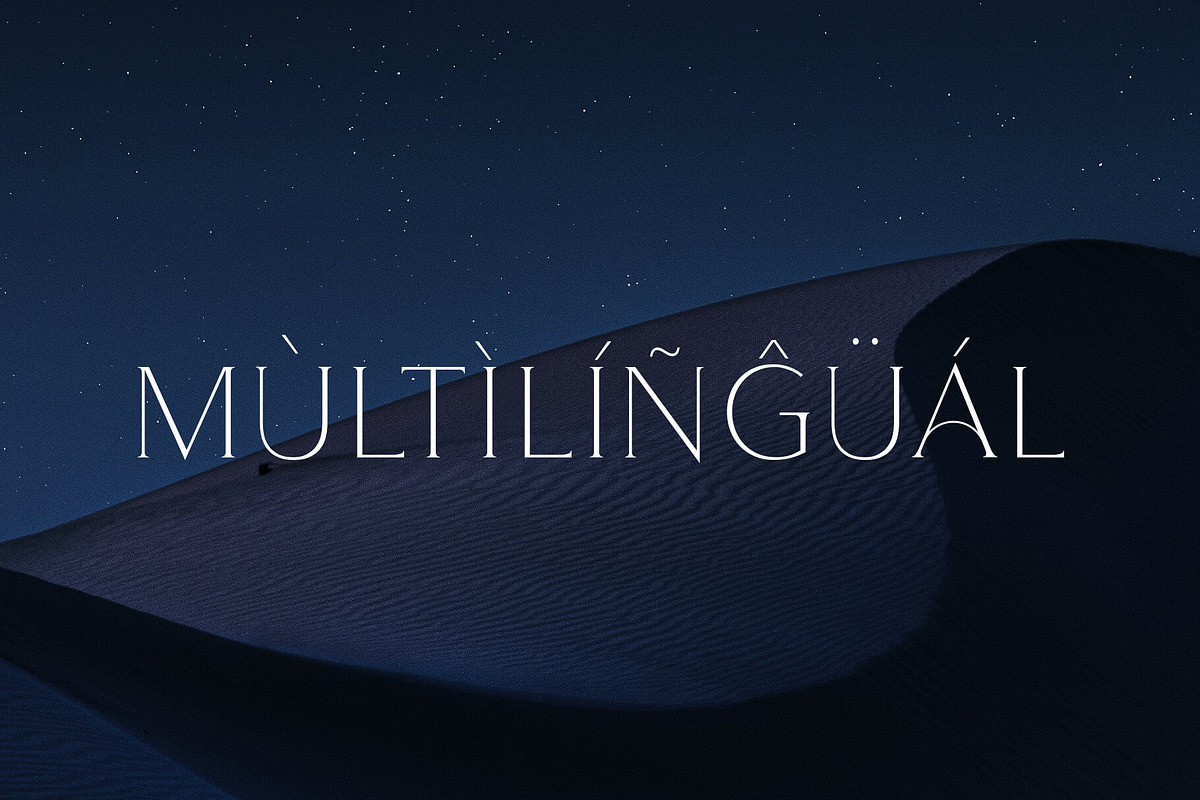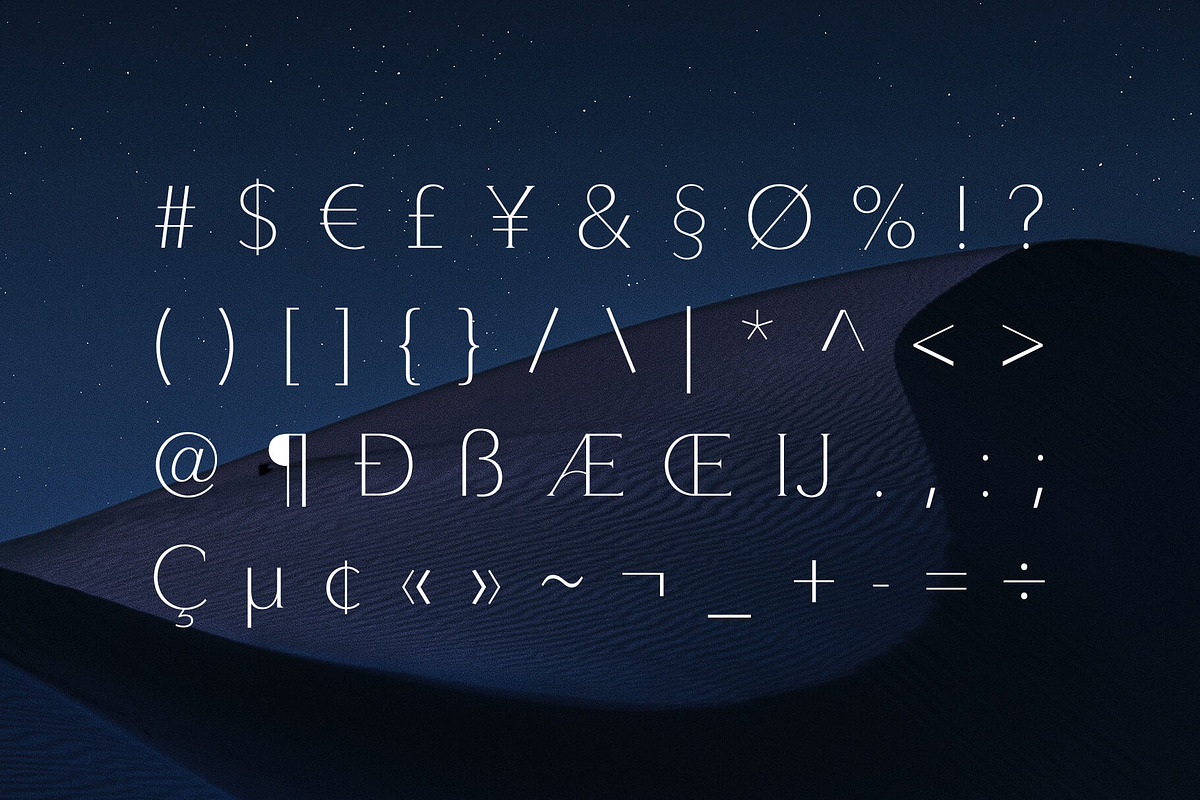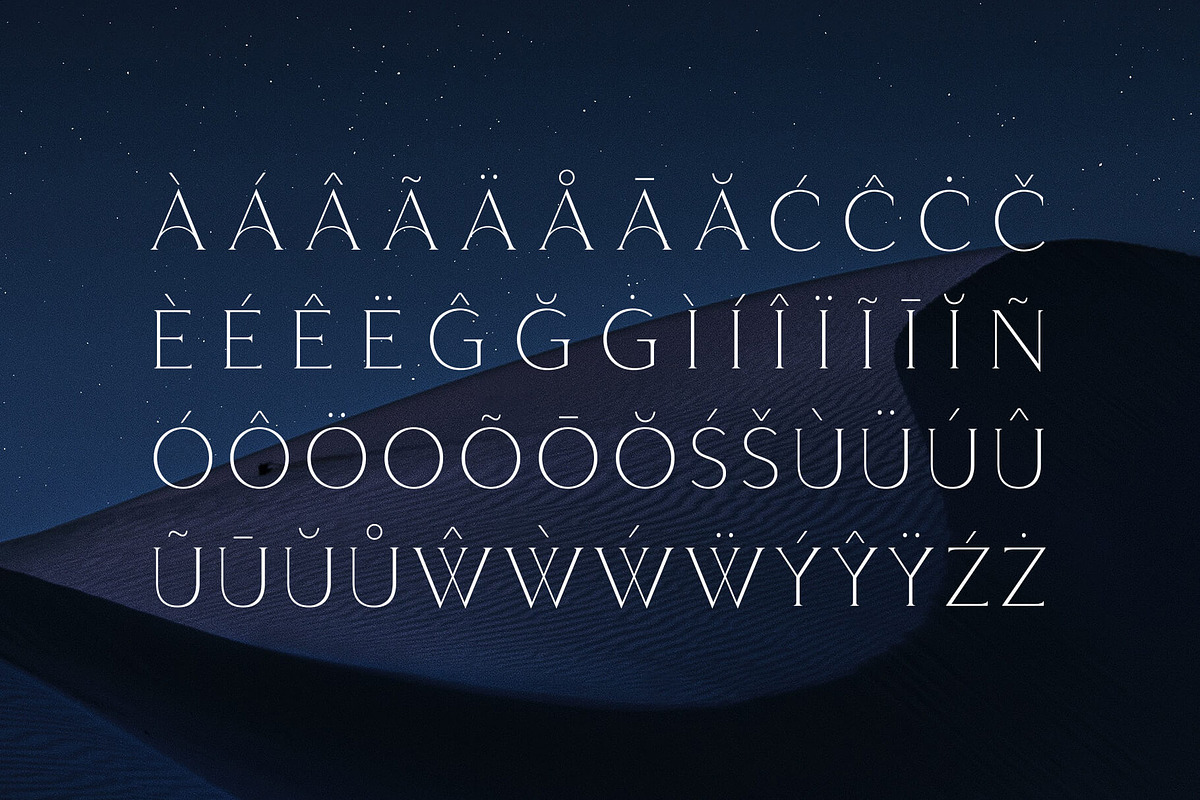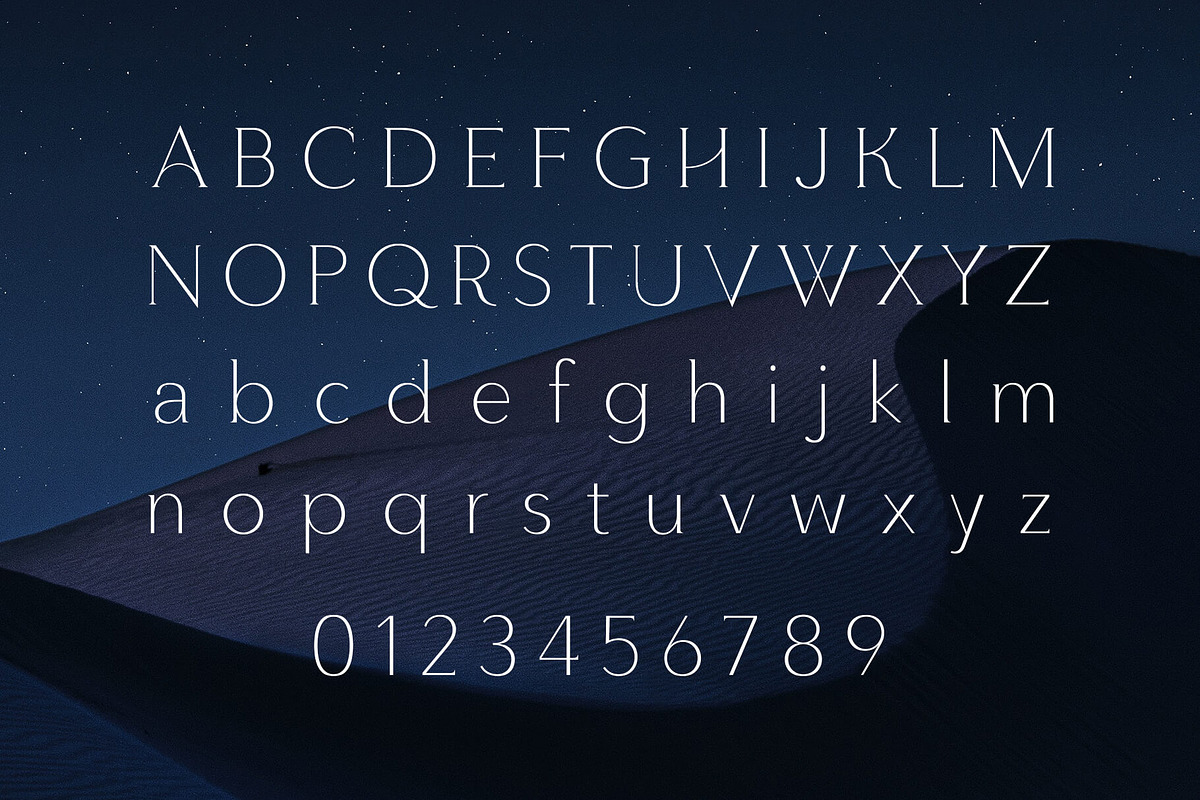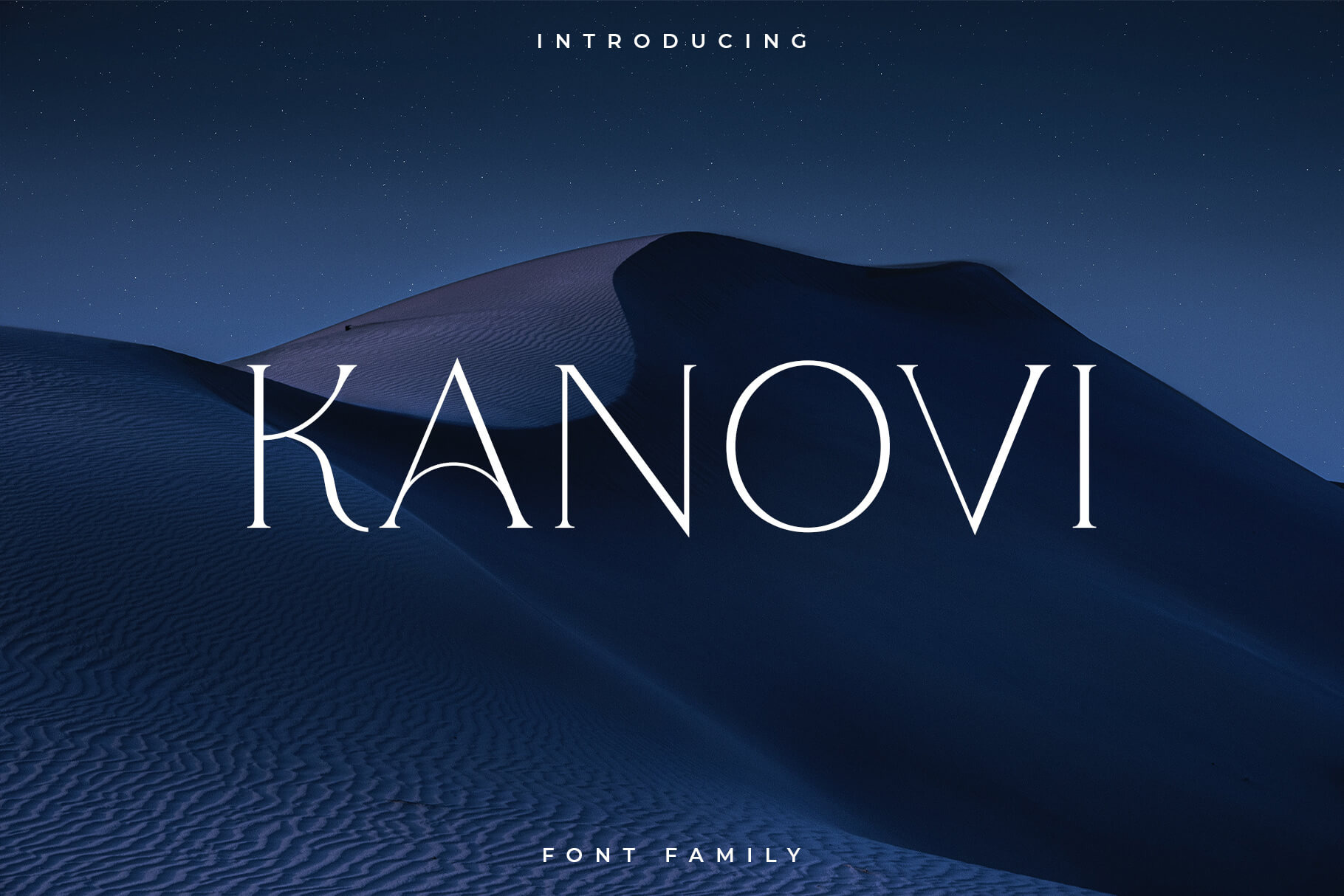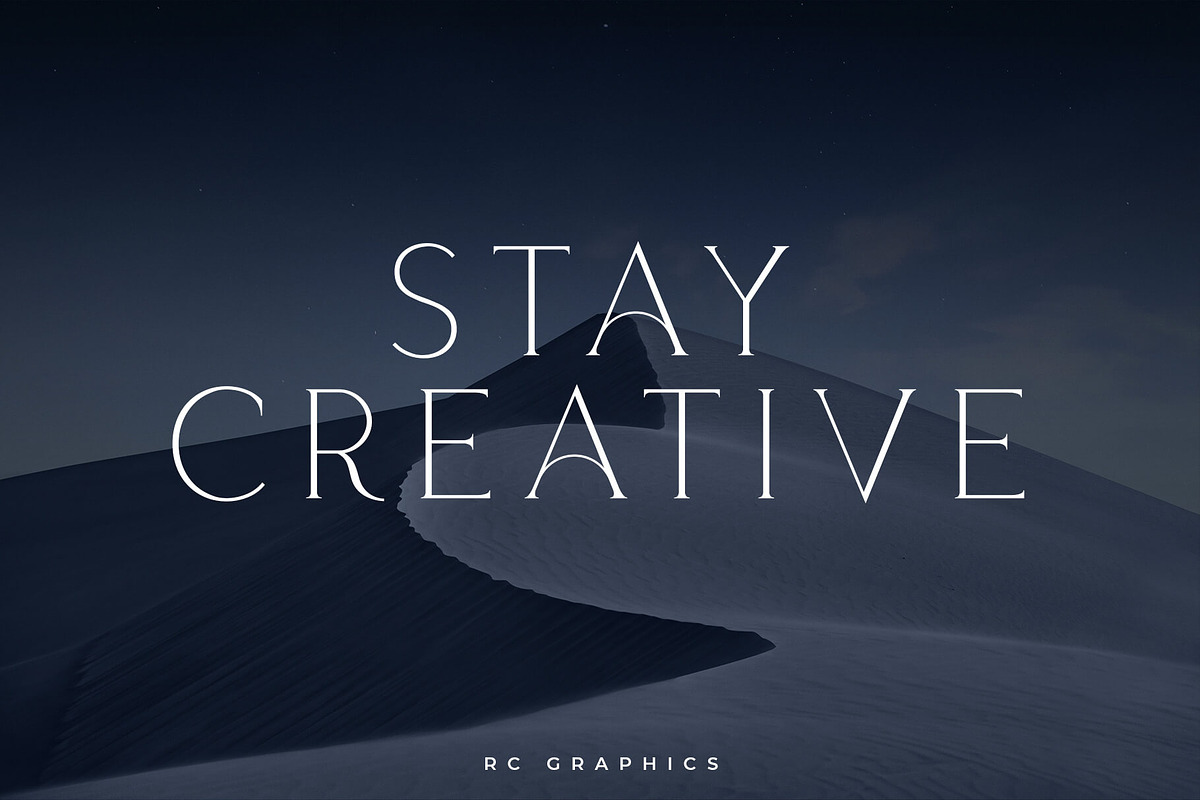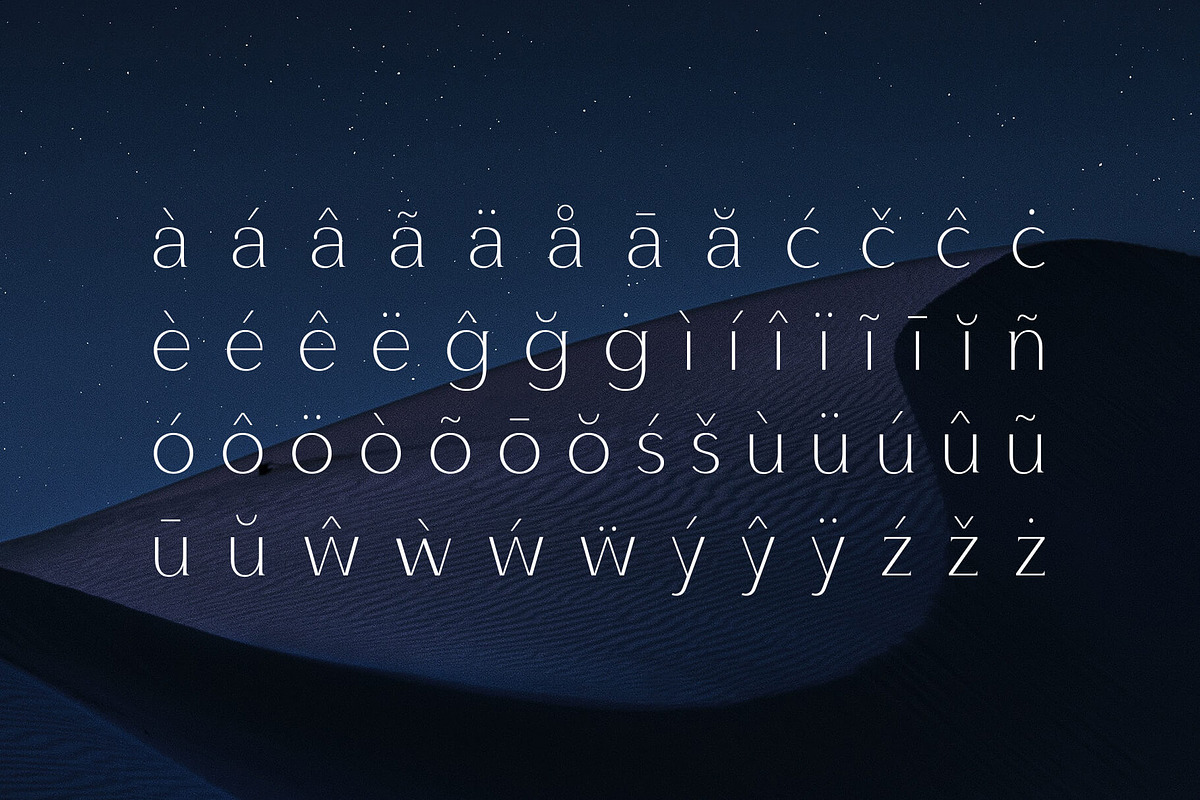
Kanovi - Elegant Serif Font
Kanovi is a modern and elegant sans serif typeface designed to bring clarity, balance, and visual impact to your creative projects. Its clean, contemporary design makes it an excellent choice for modern brands, digital products, and strong visual identities.
Carefully crafted to be both minimal and expressive, Kanovi adapts effortlessly to a wide range of uses while maintaining a distinctive personality.
Kanovi is more than a typeface it’s a visual identity tool designed to elevate your message with simplicity, precision, and style.
Uppercase letters
Lowercase letters
Symbols
Accented characters
Multilingual (Foreign language characters)